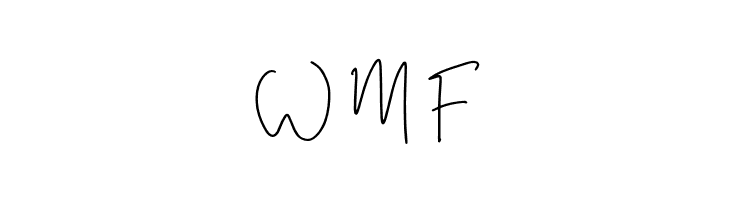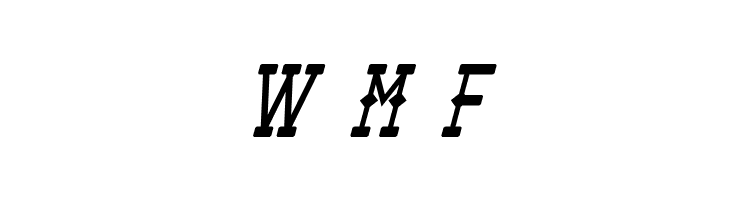
• Banten Unfamous
A bold, angular font with a gothic, geometric style.
• BANTER
A playful, bold font with a hand-drawn, whimsical style.
• Bantham
A dynamic, cursive script font with bold, sweeping strokes and elegant flourishes.
• Bantham
A flowing, elegant script font with bold, cursive strokes and artistic flourishes.
• Banthern Personal Use
A bold, decorative font with vintage-inspired, ornate details.
• Bantorain
A bold slab serif font with strong, block-like serifs and uniform width.
• Bantorain Bold
A bold, slab serif font with strong geometric shapes and thick strokes.
• Bantorain Bold Italic
A bold, italic font with thick strokes and a dynamic, slanted style.
• Bantorain Italic
A bold, italic font with a strong slant and modern appeal.
• Banttany-Regular
A playful, casual handwritten font with flowing, connected letterforms.